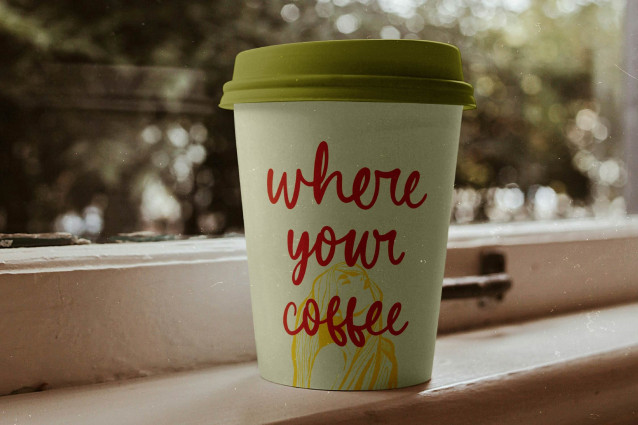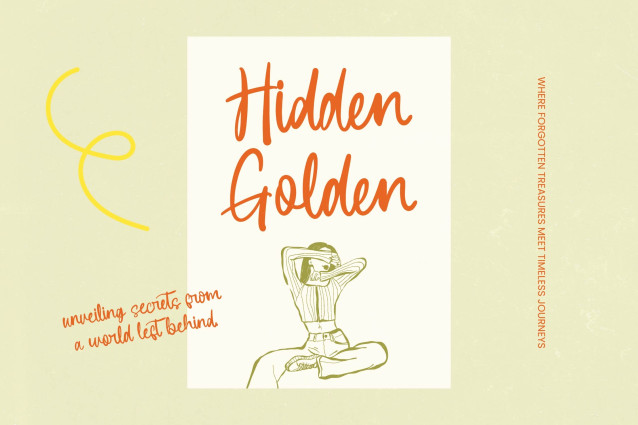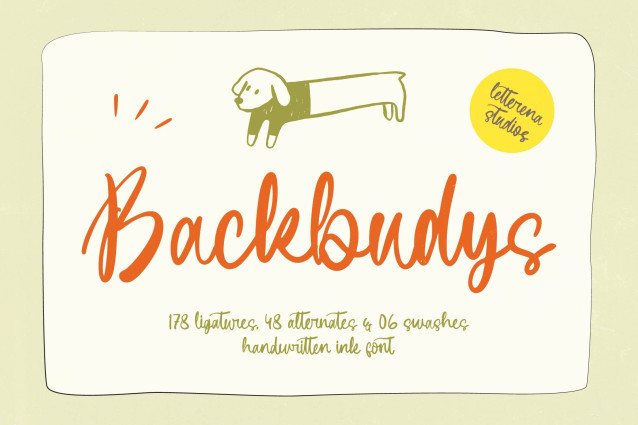
Backbudys – Handwritten Ink Font
Elevate your creative vision with an authentic, organic touch that resonates with modern audiences. Backbudys – Handwritten Ink Font is a masterfully crafted script that captures the essence of fluid ink strokes and natural penmanship. This premium typography solution offers a stunning hand-drawn aesthetic, perfect for designers looking to infuse their work with personality and artistic flair. With its balanced rhythm and expressive curves, it stands out as a top-tier choice for high-impact visual storytelling.
Unleash unparalleled creative flexibility through a rich library of OpenType features, including 178 ligatures and 48 alternates that ensure every word looks unique. With its extensive multilingual support, Backbudys – Handwritten Ink Font adapts seamlessly across global markets, making it incredibly versatile for international projects. This technical precision allows for a smooth, natural flow in any language, ensuring your brand message remains consistent and professional regardless of the geographical region.